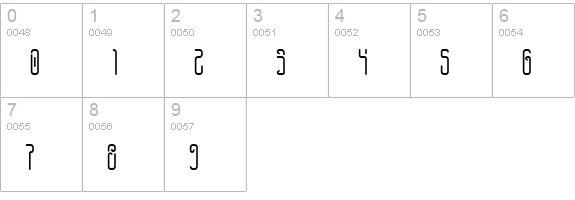
Pheanis Wickey Font Details
Introducing the mesmerizing Pheanis Wickey font - an exquisite blend of elegance and creativity that will captivate your imagination. This unique typeface is meticulously crafted to elevate your designs to new heights, making it the perfect choice for any project that demands a touch of sophistication. Pheanis Wickey font boasts a harmonious balance between sleek, modern lines and a timeless appeal. Its flowing curves and delicate strokes effortlessly guide the eye, creating a harmonious visual experience that is second to none. Whether used for branding, editorial design, invitations, or any other creative endeavor, this font delivers a distinct and refined look that will leave a lasting impression. What sets Pheanis Wickey font apart is its versatility. It effortlessly adapts to various design themes, seamlessly blending into both traditional and contemporary aesthetics. From luxurious wedding invitations to sleek magazine layouts, this font adds a touch of class and elegance to any project. But what makes Pheanis Wickey font truly exceptional is that it is available for free. Yes, you read that right - this remarkable font can be freely downloaded at FontsMarket.com. So, whether you're a professional designer or an aspiring creative enthusiast, you can now access this incredible font without any restrictions or limitations. Don't miss out on the opportunity to enhance your designs with the timeless beauty of Pheanis Wickey font. Download it today from FontsMarket.com and unlock a world of possibilities. Elevate your creations, make a statement, and let Pheanis Wickey font be the key to your design success.